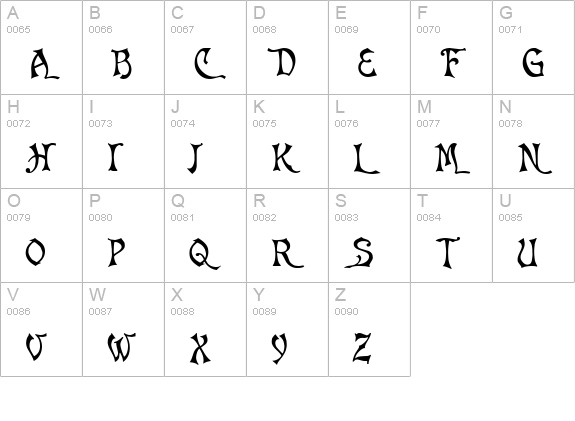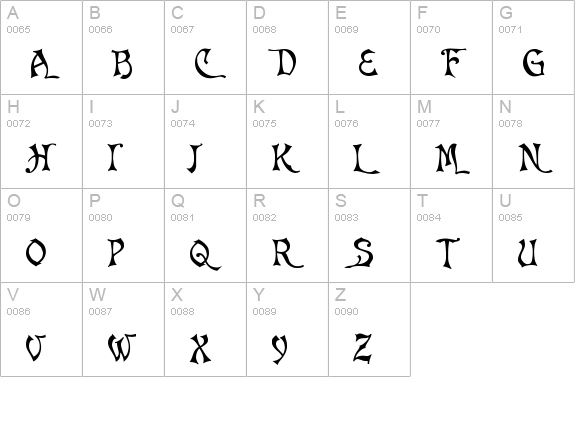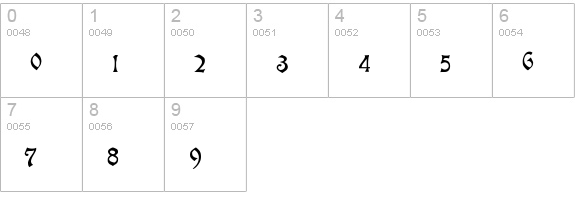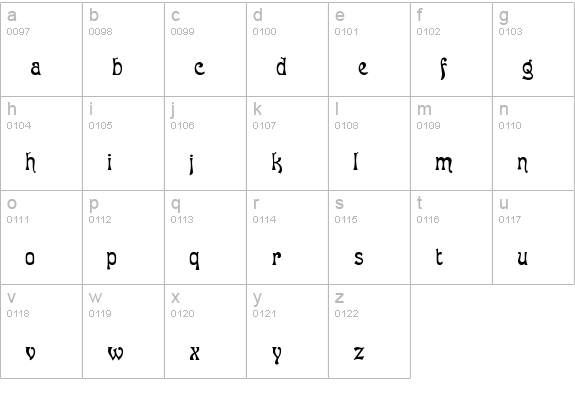
Introducing Asphodel™ font, a modern and elegant typeface that will elevate your design projects to a whole new level. With its sleek lines and balanced proportions, Asphodel™ is the perfect choice for anything from branding to editorial design. This versatile font exudes sophistication and style, making it ideal for a wide range of applications. What sets Asphodel™ apart is not just its timeless design, but also the fact that it is available for free download at FontsMarket.com. Yes, you read that right – this high-quality font can be yours at no cost, allowing you to bring a touch of class to your work without breaking the bank. Whether you're working on a website, a logo, or a print publication, Asphodel™ is sure to impress with its clean and professional look. Don't miss out on this opportunity to enhance your designs with a premium font that won't cost you a penny. Download Asphodel™ today and take your projects to the next level.